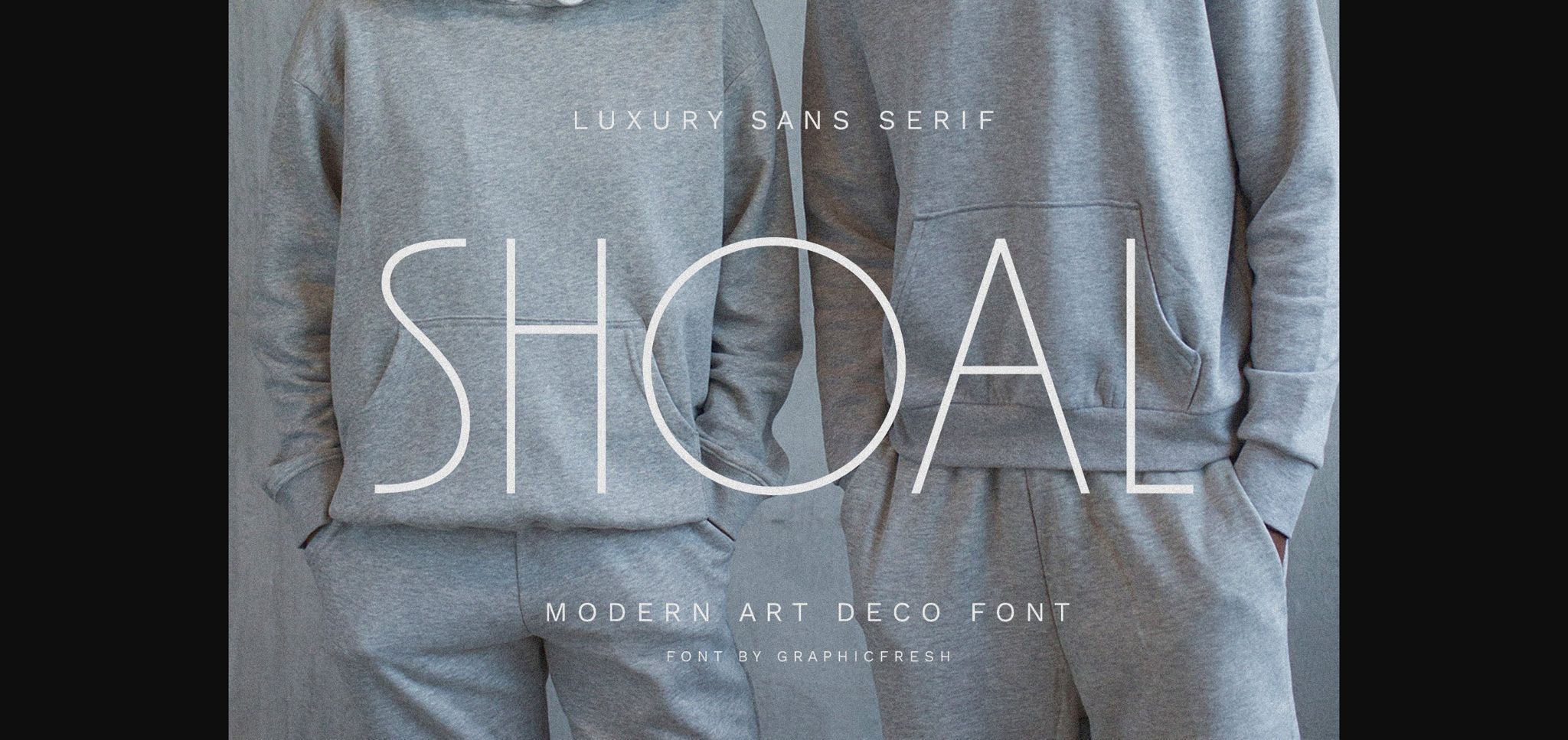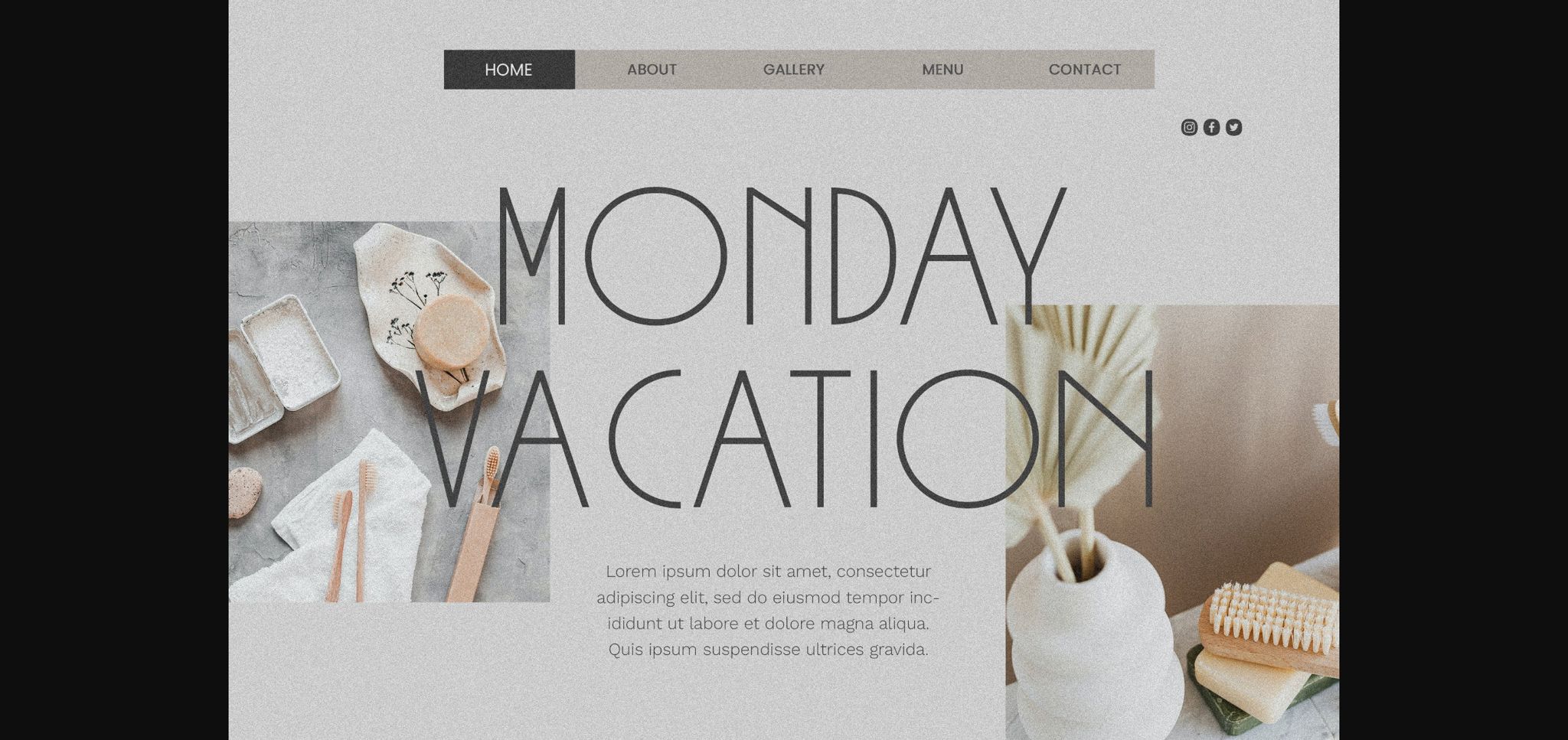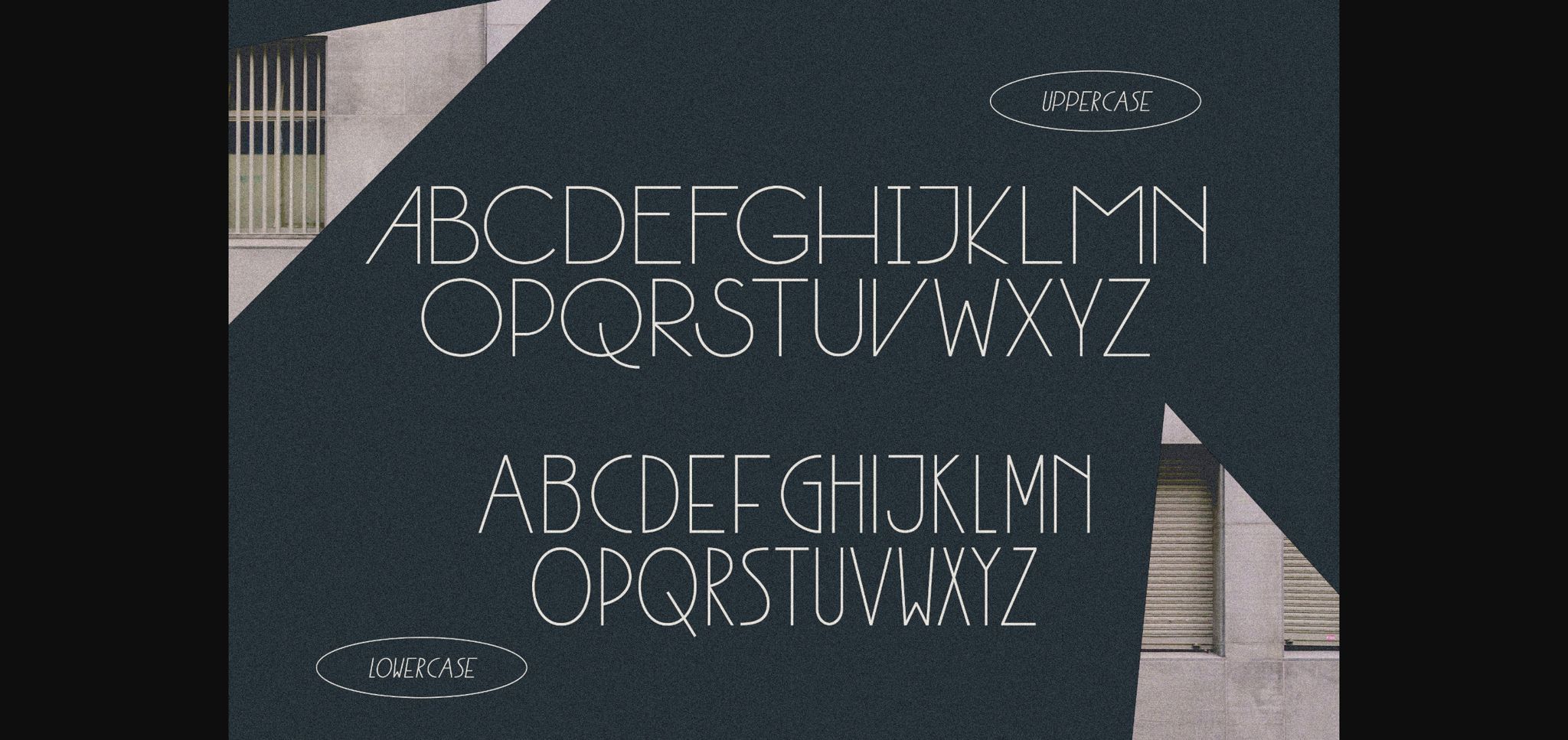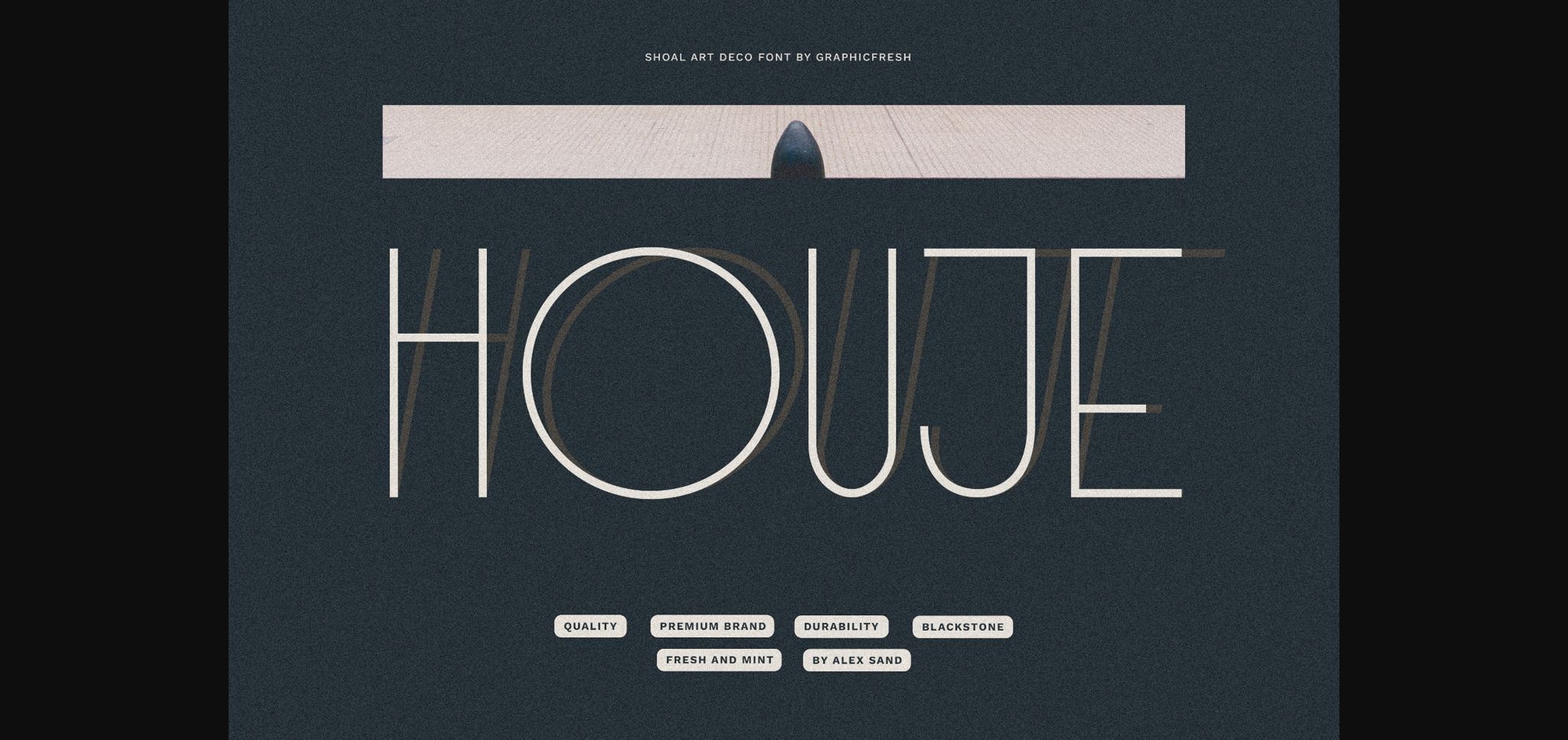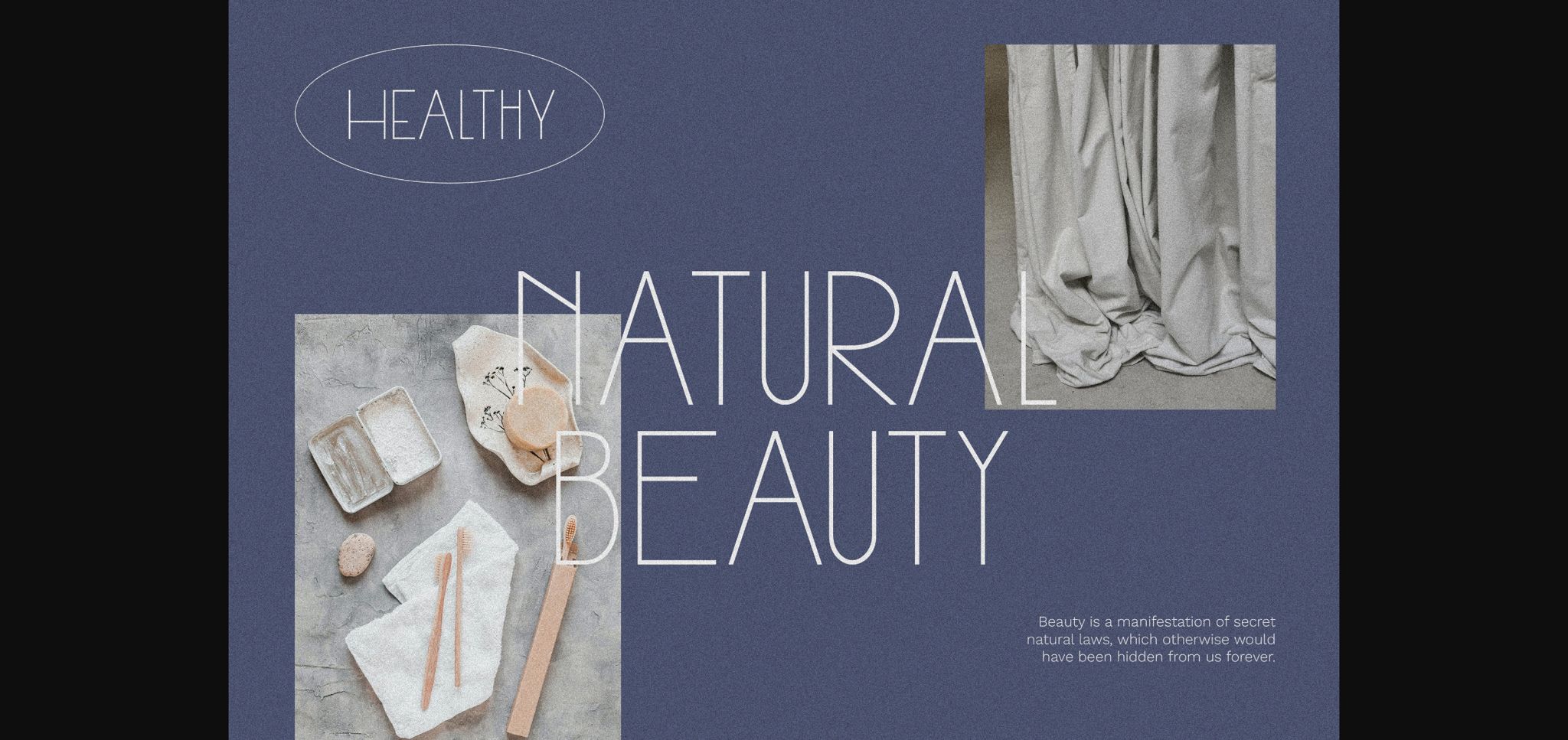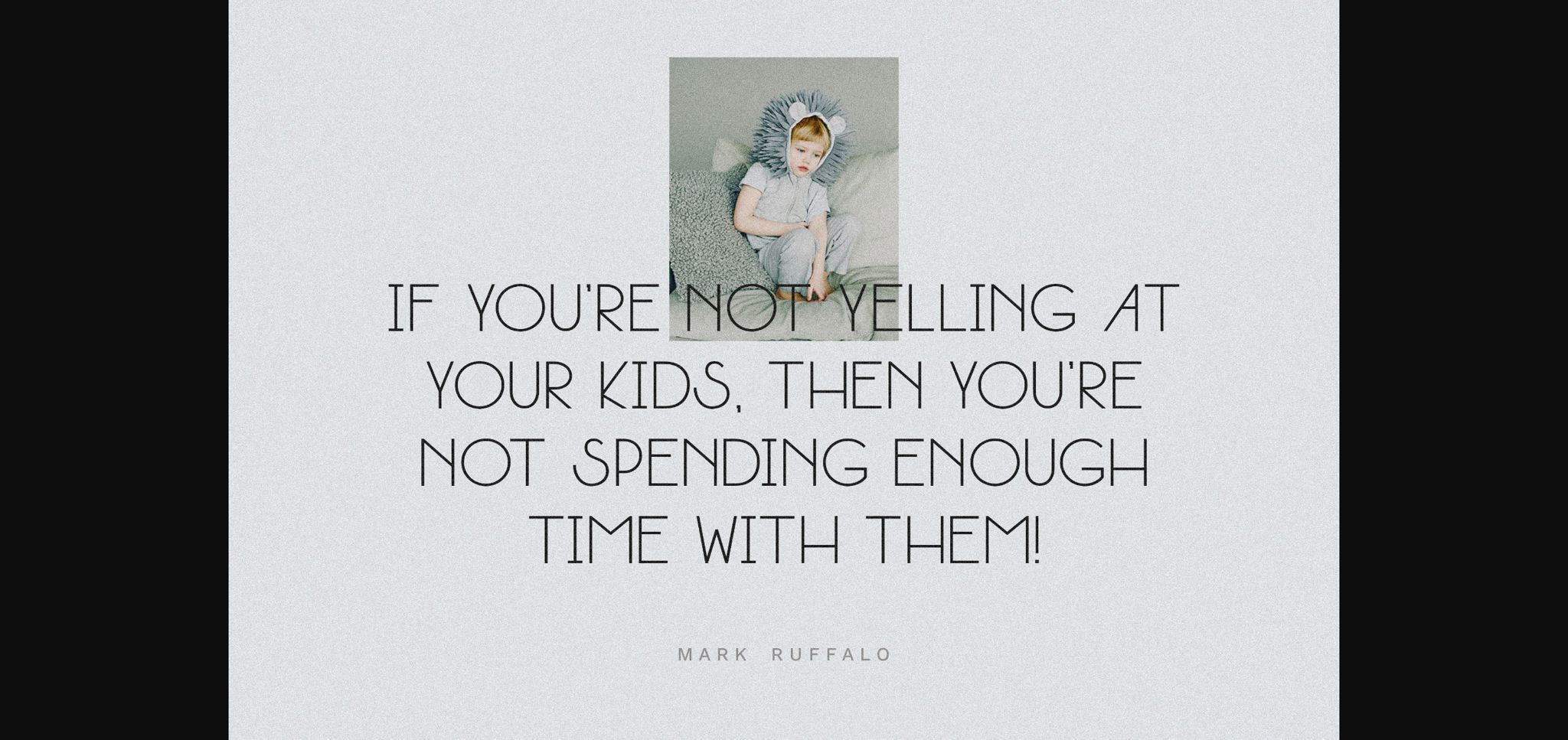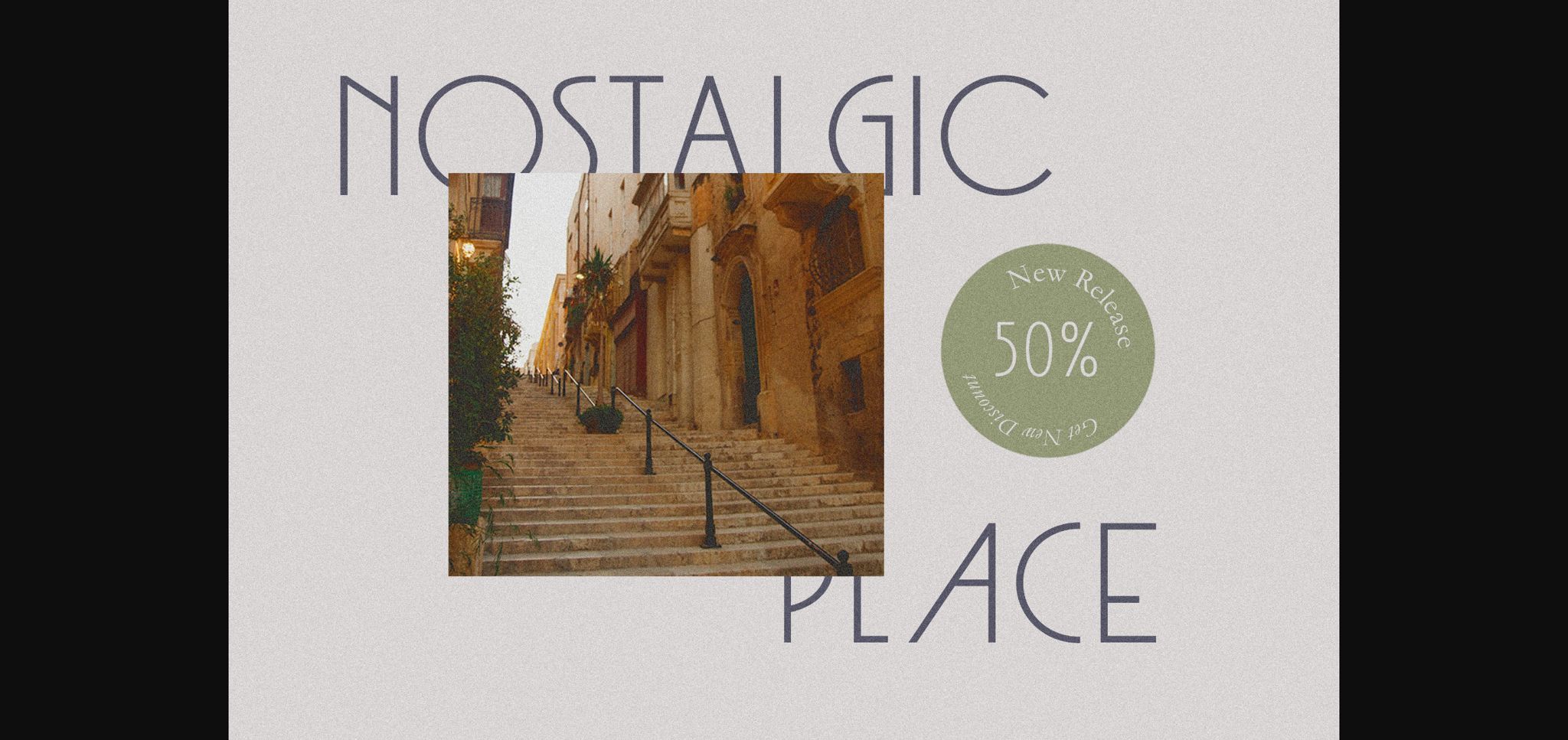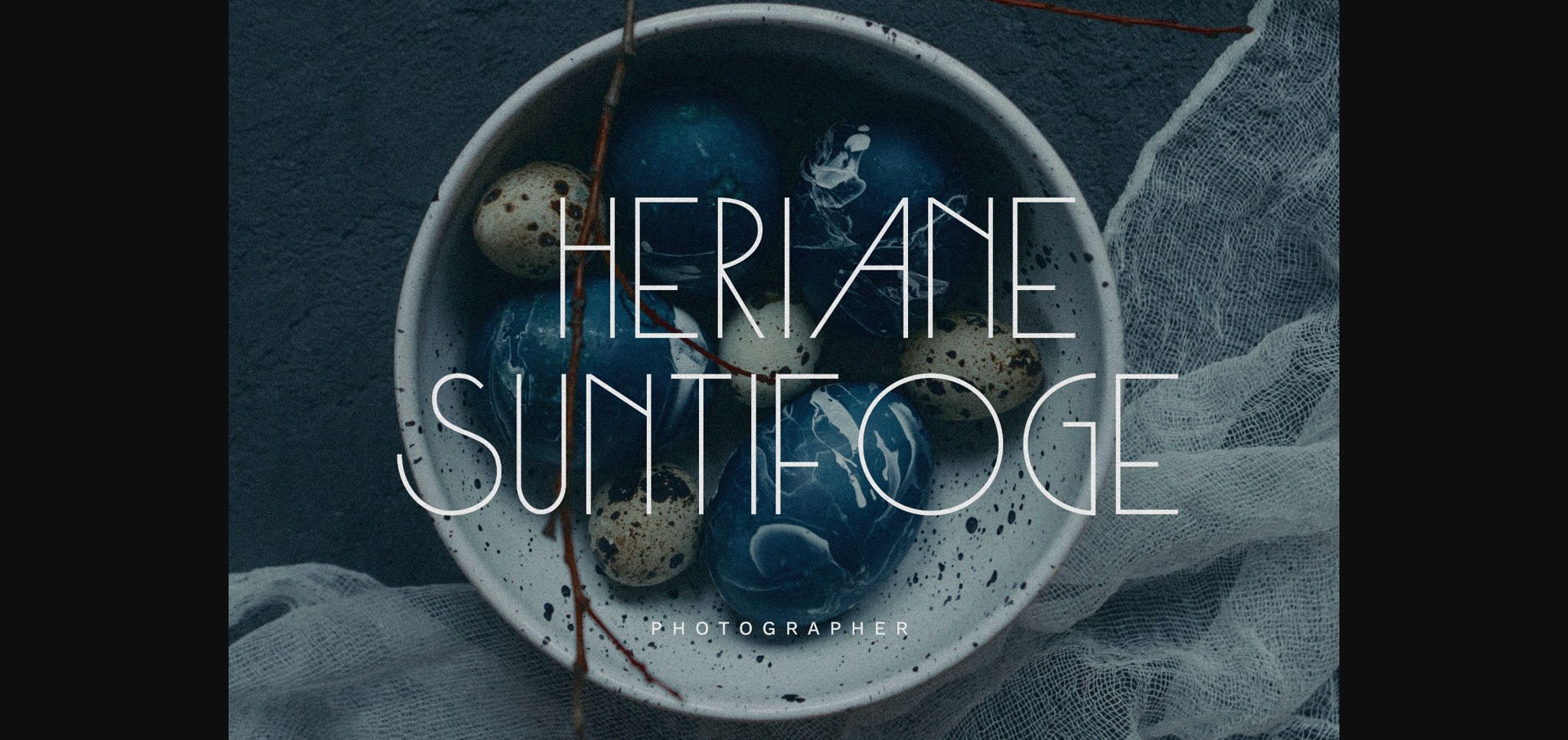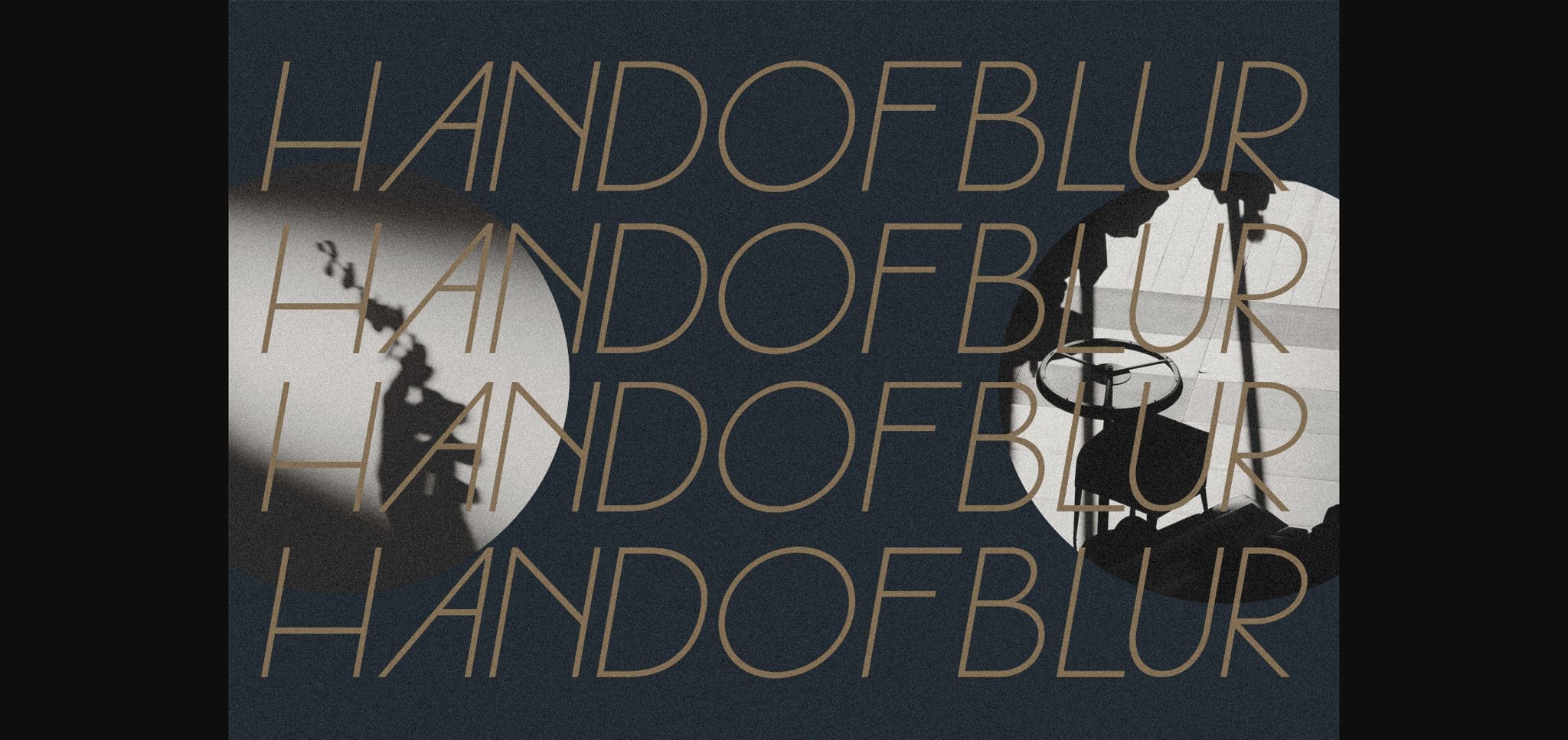
Shoal is a classic, neat, and stylish sans serif font. No matter the topic, this font will be an incredible asset to your fonts’ library, as it has the potential to elevate any creation.